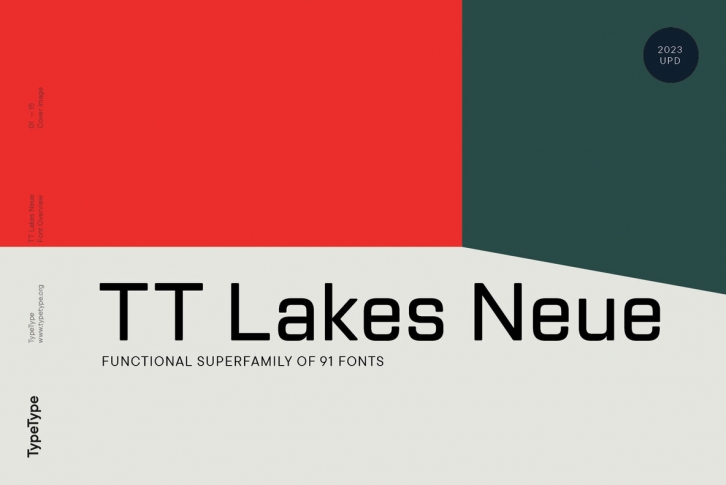
TT Lakes Neue is a simple and functional sans-serif that draws inspiration from Finnish signs of the functionalism era. Despite the general resemblance to the once popular TT Lakes typeface, TT Lakes Neue is a typeface of a completely different level: it features a much more mature approach to design, working with details and to its functionality and variability. We can safely say that using TT Lakes Neue in your work is like wearing classic jeans—they suit everyone and meet any life challenge.
We started work on TT Lakes Neue by revising the width palette and increasing their number to five width: Compressed, Condensed, Regular, Extended, Expanded. Within each of these 5 widths, we revised the distribution of thicknesses and made this distribution more harmonious. Within each of the styles, we corrected the proportions of the characters (for example, E, M), changed the shapes of the characters (for example, S, R, K, Л) and redrew each character anew. For letters with semi-ovals, we completely changed the location of inflows, which now correspond to the logic of pen writing.
We added massive visual compensators in the boldest styles from the narrowest widths of TT Lakes Neue—this is done in order to preserve as much internal white as possible in the characters and maintain their readability. In addition to forced compensation in the boldest styles, TT Lakes Neue is a maximally non-contrasting sans-serif, with ovals in the form of rounded rectangles. All external corners of the glyphs were also rounded. Thanks to the relatively wide characters (for example, f, t, r, s, г, т), the proportions of TT Lakes Neue tend to be of equal width.
TT Lakes Neue Variable is the quintessence of the entire font family, but it can offer much more functionality. Like in TT Octosquares Variable and TT Supermolot Neue Variable, in TT Lakes Neue, the font variability can be simultaneously adjusted along three axes of variability: weight, width and slant, which gives unlimited possibilities in functionality and user settings. To use the variable font with three variable axes on Mac you will need MacOS 10.14 or higher. For other software and browsers, you can check the support status here:
Lakes Neue includes 5 subfamilies: Compressed, Condensed, Regular, Extended, Expanded. Each of the subfamilies consists of 9 upright and 9 oblique styles, which in total amounts to incredible 90 faces + 2 outline styles + 1 variable font. Unlike its predecessor, each style of the new TT Lakes Neue consists of 736 glyphs and 28 OpenType features. TT Lakes Neue has stylistic alternates and ligatures, old-style figures, slashed zero, two sets of numbers in circles, arrows, and other useful features, such as aalt, ccmp. locl, subs, sinf, sups, numr, dnom, frac, ordn, lnum, onum, case, dlig, liga, calt, salt, zero, ss01, ss02, ss03, ss04, ss05, ss06, ss07, ss08, ss09, ss10.